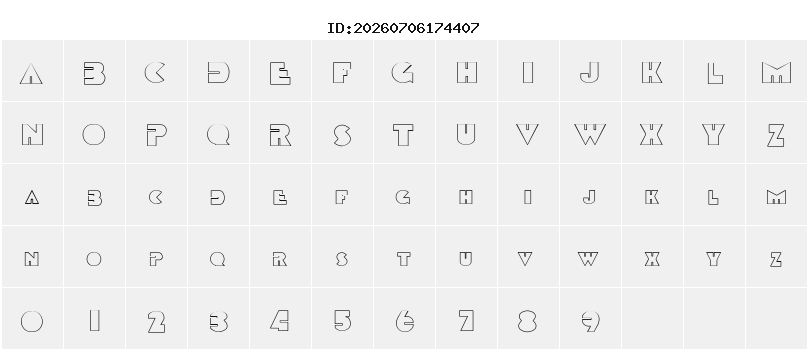
Devendra-Ho Preview
• Font Name: Devendra-Ho
• Full Font Name: Devendra Ho Normal
About Devendra-Ho.ttf
Devendra-Ho.ttf is a modern, elegant sans-serif font designed for ultimate readability and visual harmony. Perfect for branding, headlines, web design, and print materials.